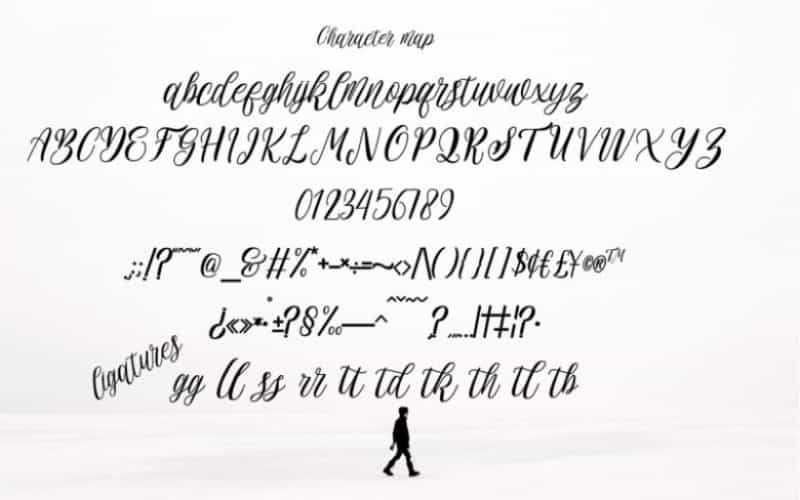
Introduce, our last font, we called it rehattyn, rehattyn is a modern bouncing script font with a hand-lettering touch. It’s the Ideal for greeting cards, quote, branding, stationery design, social media, packaging, magazine layouts, prints and more!